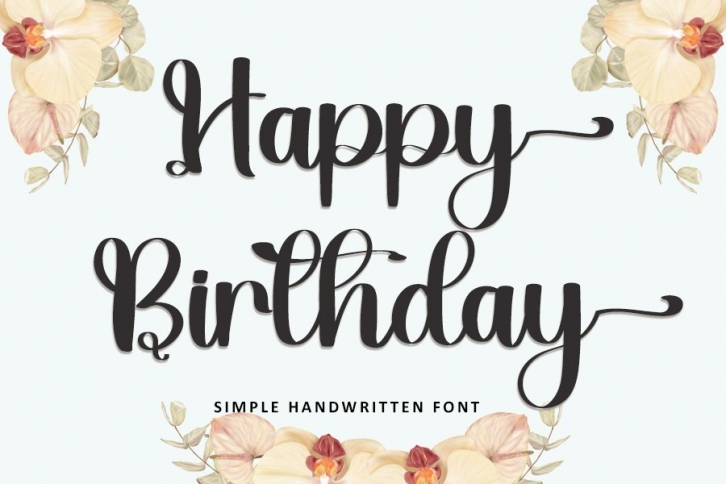
Happy Birthday is a beautiful font that was designed by InermediaSTUDIO. It's a great choice for designers and creatives who need such a font. It was released on October 14, 2022 and the file size is 12.36 MB. Happy Birthday may give a more youthful, expressive and casual look to your project. It is a very beautiful, refined, elegant, and high-quality font.